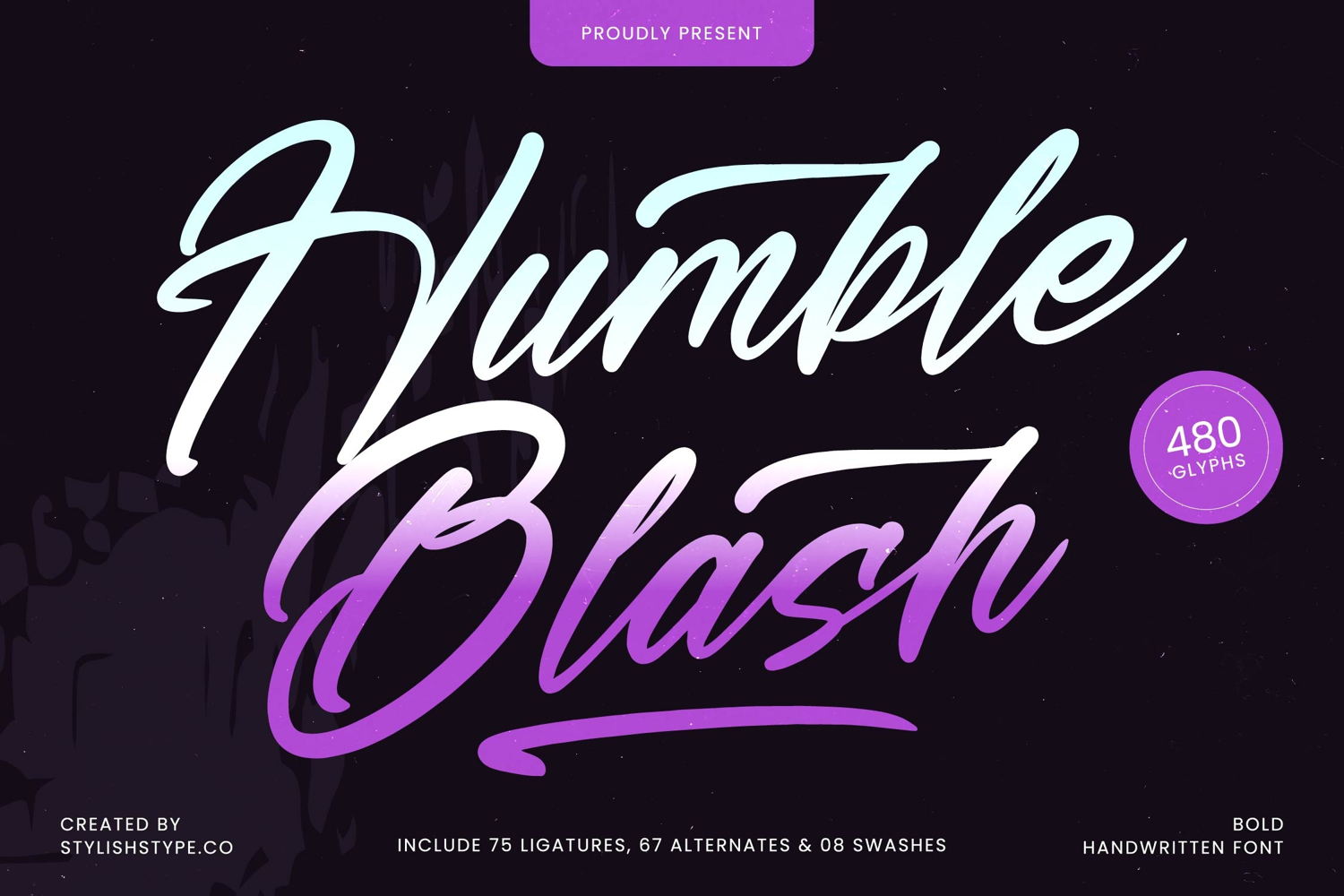
Humble Blash - Bold Handwritten Font
Humble Blash
Humble Blash Italic
Humble Blash - Bold Handwritten Font. This expressive script font is defined by its dramatic, high-contrast strokes and unapologetically bold weight, capturing the authentic texture and flow of traditional brush lettering. It is specifically engineered for impactful display use, instantly turning standard text into a memorable, visually dominant focal point.